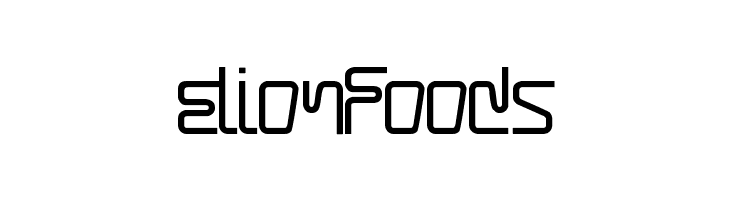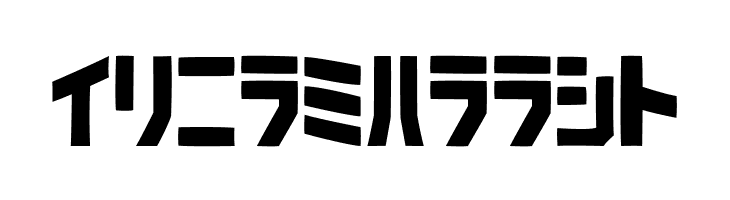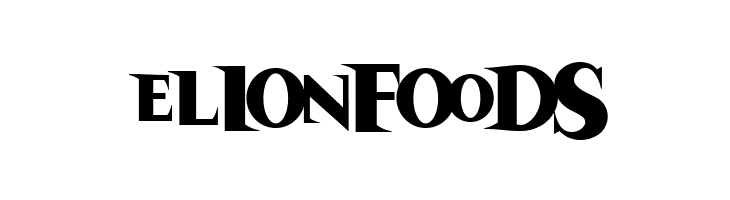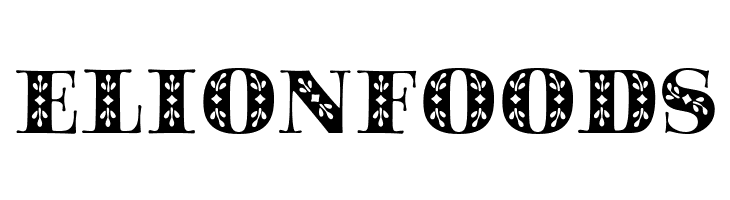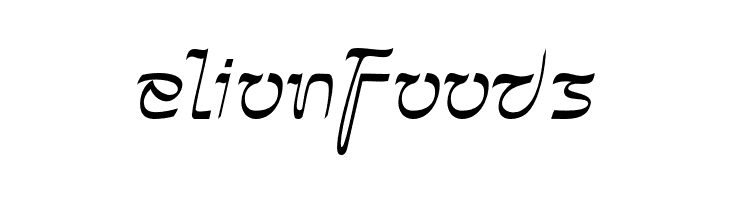
• SangkuriangCursive
( Gregorius Wisnu )
A dynamic cursive font with elegant, flowing letterforms and a modern classic appeal.
• Sanitarium BB
A bold, high-contrast font with sharp serifs and dynamic character shapes.
• SanitariumBB
A bold, angular serif font with a dramatic and modern twist.
• Sans Culottes
A bold, distressed font with a rugged, vintage aesthetic.
• Sansation
• SansCulottes
A bold, distressed font with a rugged, vintage look.
• Sapphire!
A decorative font with intricate floral patterns within each character.
• SardinenHR
( Fonts by Maniackers Design - www.mksd.jp OFF SITE )
Bold, geometric font with strong, uniform strokes and a modern, industrial feel.
• SardinenKT
( Fonts by Maniackers Design - www.mksd.jp OFF SITE )
Bold, geometric font with blocky, angular characters for a modern, assertive look.
• Scable
A futuristic, geometric font with a modular and consistent design.